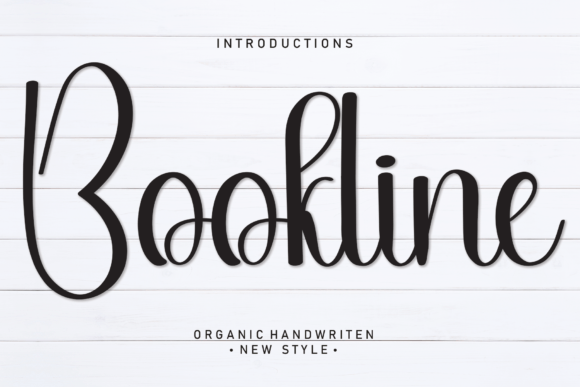
Introducing Bookline Font, an exquisite script font that will instantly elevate your creative projects. Inspired by the beauty of handwritten notes, this delicate and elegant font exudes a touch of sophistication and charm. Its graceful strokes and flowing characters create a mesmerizing visual effect that will captivate your audience.
With its carefully crafted curves and well-balanced structure, Bookline Font ensures readability and visual appeal, making it perfect for a wide range of applications. Its versatility shines in both digital and print formats, allowing you to create stunning logos, branding materials, social media graphics, and website designs that leave a lasting impression.
Whether you're a designer, marketer, or content creator, Bookline Font is the perfect choice for adding a touch of elegance and personality to your projects. Its timeless appeal and adaptability make it suitable for various themes and styles, from classic and vintage to modern and contemporary.
Embrace the art of handwritten elegance with Bookline Font and watch your creations come to life. Its unique style and charm will add a touch of sophistication to your projects, leaving your audience enchanted.
Unlock the true potential of your creative vision with Bookline Font. Its versatility and beauty will elevate your designs and captivate your audience. Don't miss out on this exquisite font that will transform your projects into masterpieces.